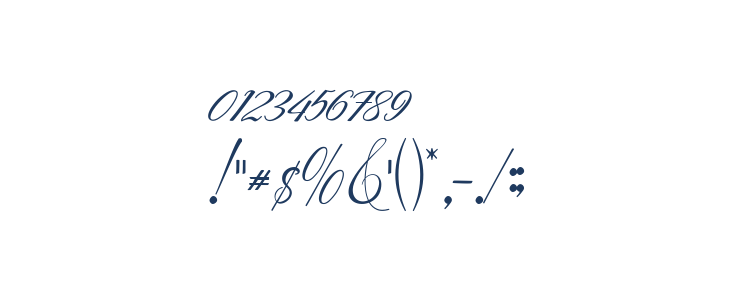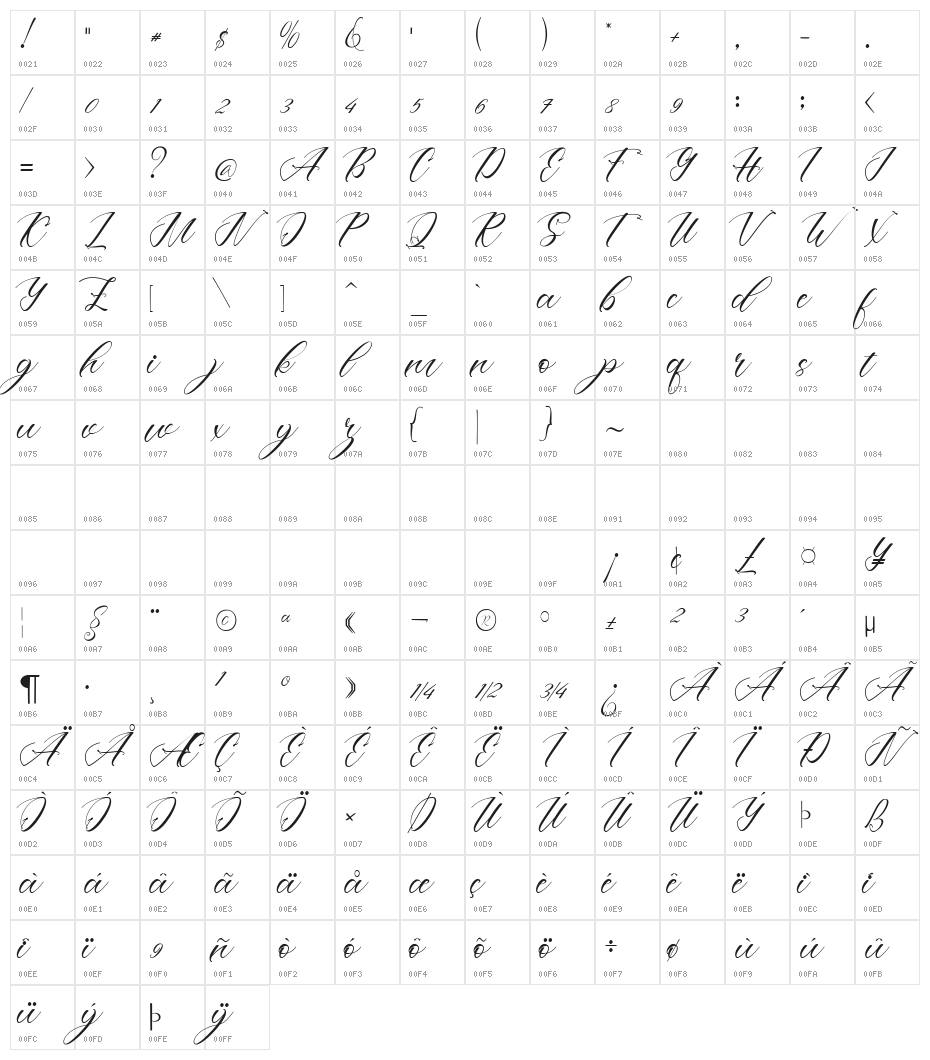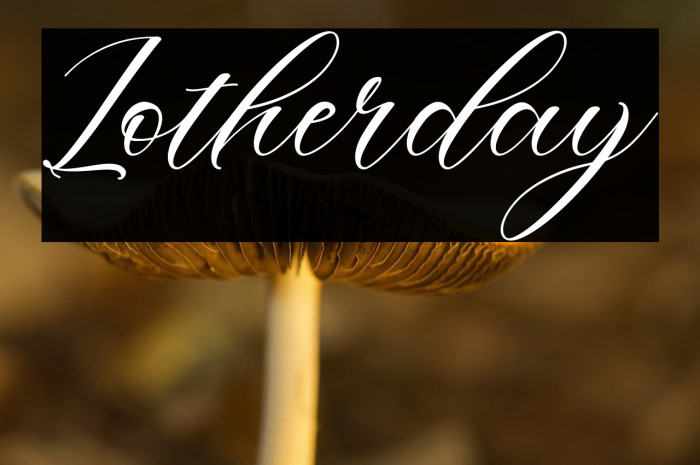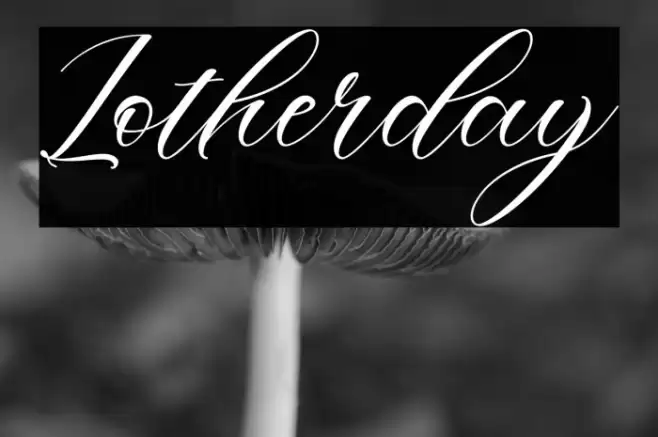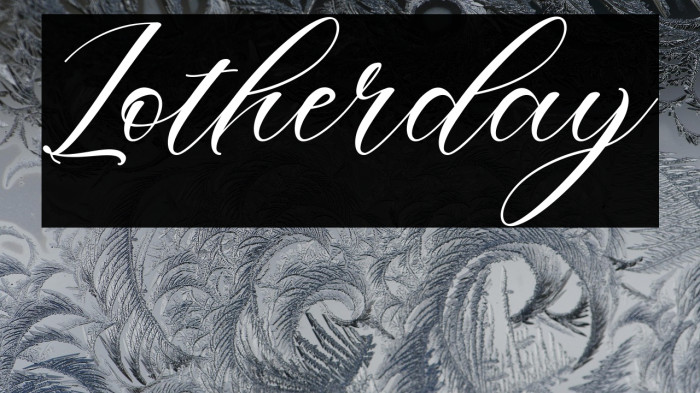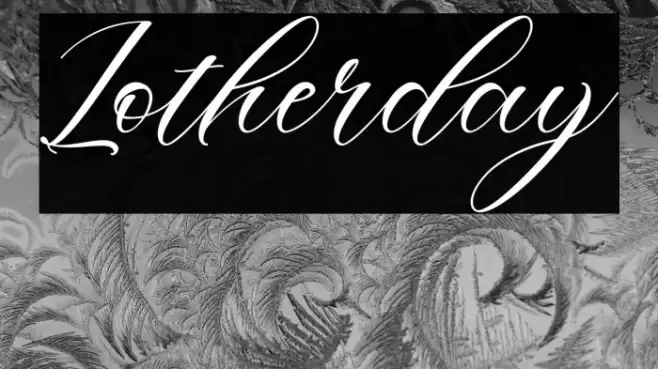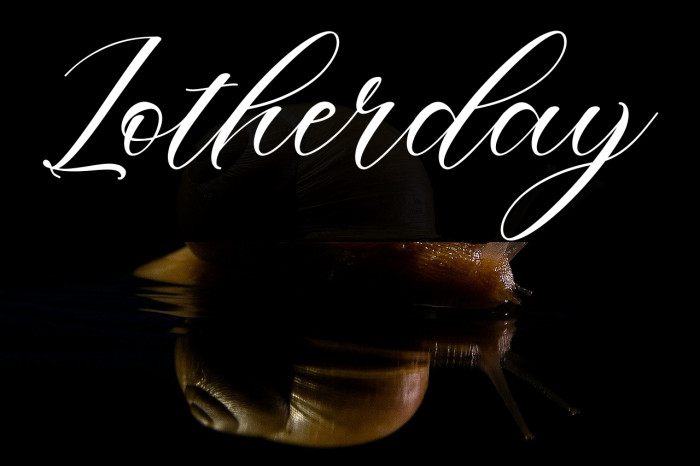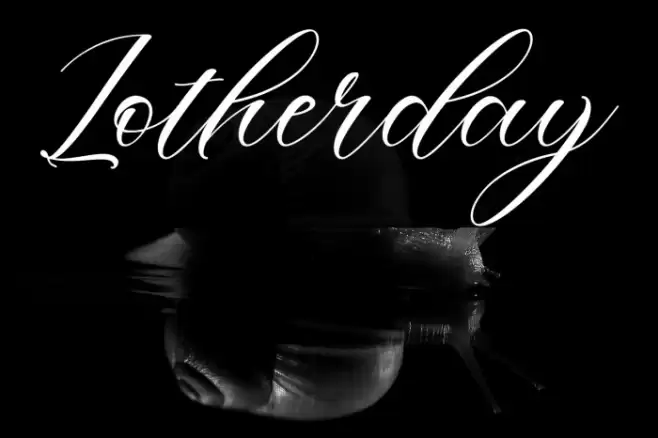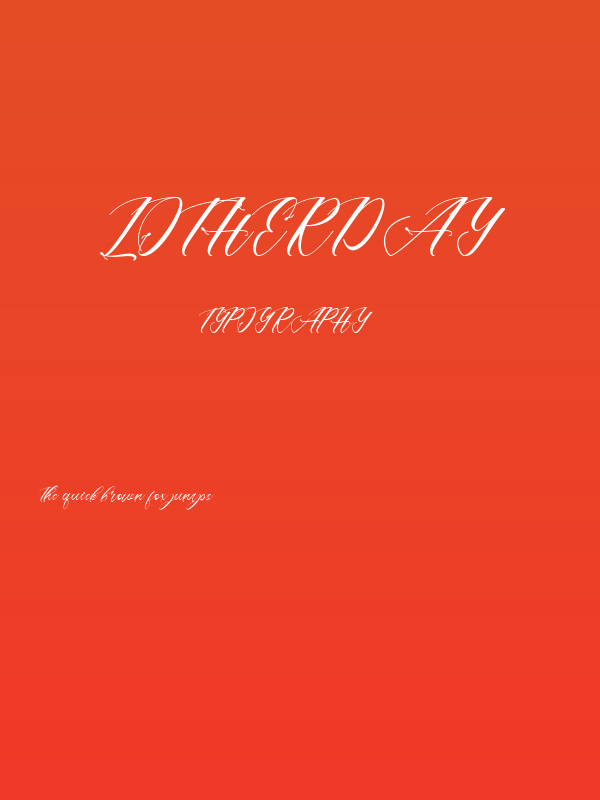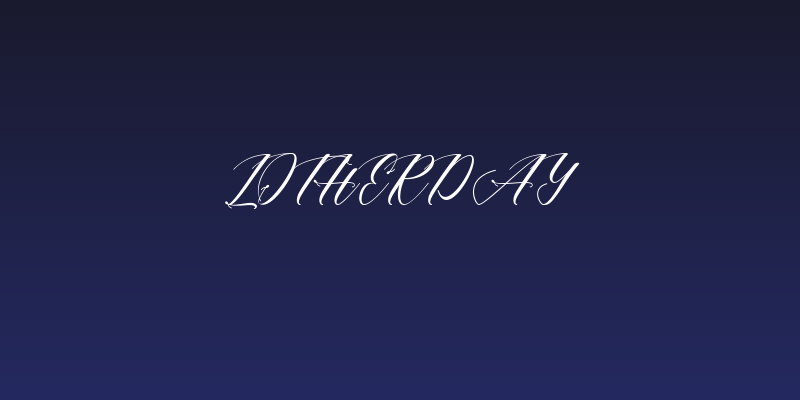
Lotherday Font
Lotherday Description
This elegant script font features a flowing, cursive style with intricate loops and flourishes. The uppercase letters are grand and sweeping, while the lowercase letters maintain a consistent, graceful flow. The numerals are stylishly integrated, matching the overall aesthetic. Special characters are designed with the same attention to detail, making them suitable for decorative purposes. The font's high contrast between thick and thin strokes adds to its sophisticated appearance, making it ideal for formal invitations, branding, and elegant design projects.
| Proposed Projects | Ideal for wedding invitations, luxury branding, elegant stationery, and decorative design elements. |